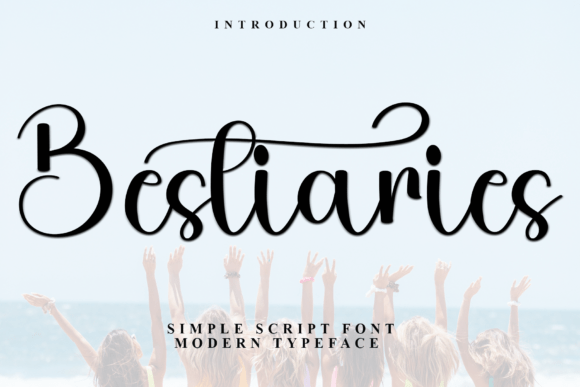
Introducing Bestiaries Font: A Unique and Versatile Typeface
In the world of typography, a good font can make all the difference in the success of a design project. A font that stands out from the crowd, conveys the right message, and resonates with the target audience is a valuable asset for any designer. Bestiaries Font is one such typeface that has been making waves in the design community with its soft, unique touch and distinctive strokes. In this article, we’ll dive into the features, benefits, and uses of Bestiaries Font, and explore why it’s becoming a popular choice among designers.
What is Bestiaries Font?
Bestiaries Font is a beautiful and eye-catching typeface designed with a soft, unique touch. Its distinctive strokes give it a special character, making it meaningful and versatile for future use. The font features a natural, organic look that sets it apart from more traditional typefaces. With various characters, Bestiaries Font is perfect for design projects, crafts, and other creative works.
Key Features of Bestiaries Font
- Unique and Distinctive Strokes: Bestiaries Font features distinctive strokes that give it a special character, making it stand out from other typefaces.
- Soft and Natural Look: The font has a soft, natural look that makes it perfect for designs that require a organic feel.
- Versatile and Meaningful: Bestiaries Font is designed to be versatile and meaningful, making it suitable for a wide range of design projects.
- Various Characters: The font features various characters, making it perfect for design projects, crafts, and other creative works.
Benefits of Using Bestiaries Font
So, why should you choose Bestiaries Font for your design projects? Here are some benefits of using this unique typeface:
- Enhance Your Designs: Bestiaries Font will enhance your designs, making them appealing to many audiences across different artistic and creative fields.
- Perfect for Creative Projects: The font is perfect for design projects, crafts, and other creative works that require a unique and distinctive touch.
Use Cases for Bestiaries Font
Bestiaries Font is a versatile typeface that can be used in a wide range of design projects. Here are some use cases for this beautiful font:
- Branding and Logo Design: Use Bestiaries Font to create a unique and memorable logo for your brand.
- Graphic Design: The font is perfect for graphic design projects, such as brochures, flyers, and posters.
- Web Design: Bestiaries Font can be used in web design projects to create a visually appealing and user-friendly website.
- Crafts and DIY Projects: The font is perfect for crafts and DIY projects, such as handmade cards, gift tags, and other paper crafts.
In conclusion, Bestiaries Font is a unique and versatile typeface that can elevate your design projects to the next level. With its soft, natural look and distinctive strokes, this font is perfect for a wide range of design projects, from branding and logo design to graphic design, web design, and crafts. Compatible with various applications, including Windows and open-source platforms, Bestiaries Font is an excellent choice for designers looking for a beautiful and eye-catching font.